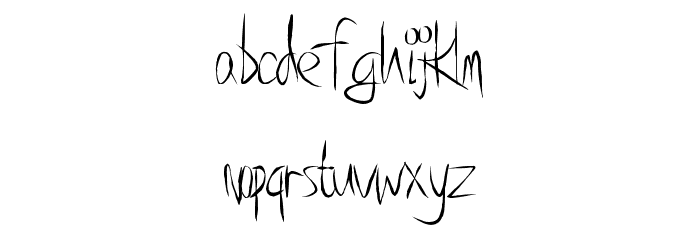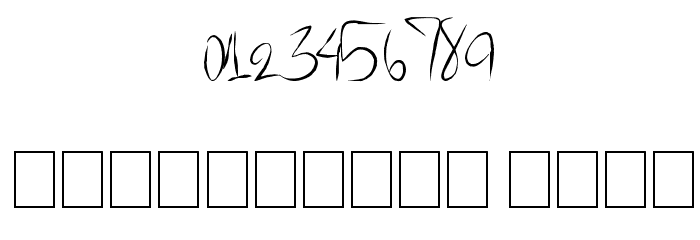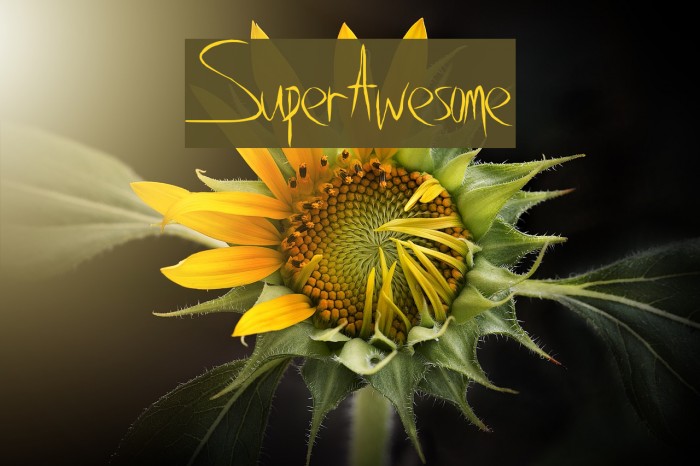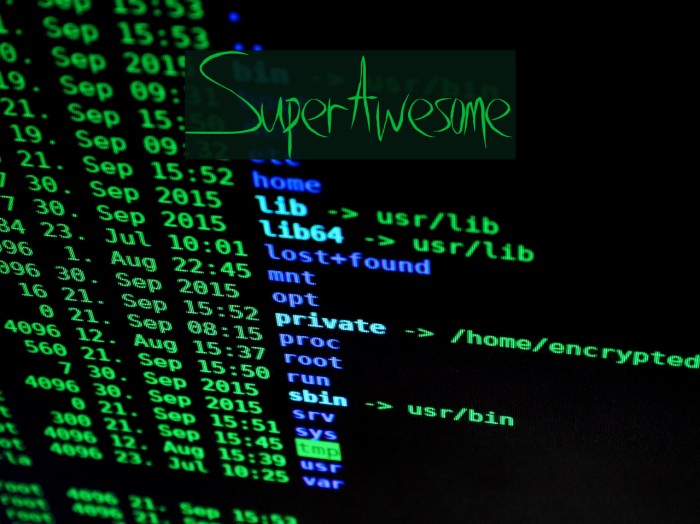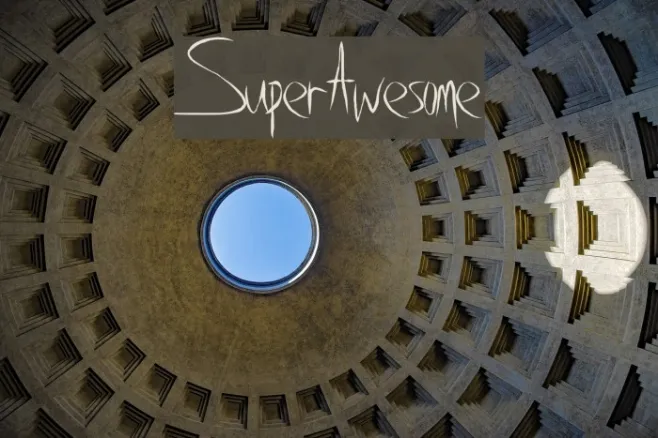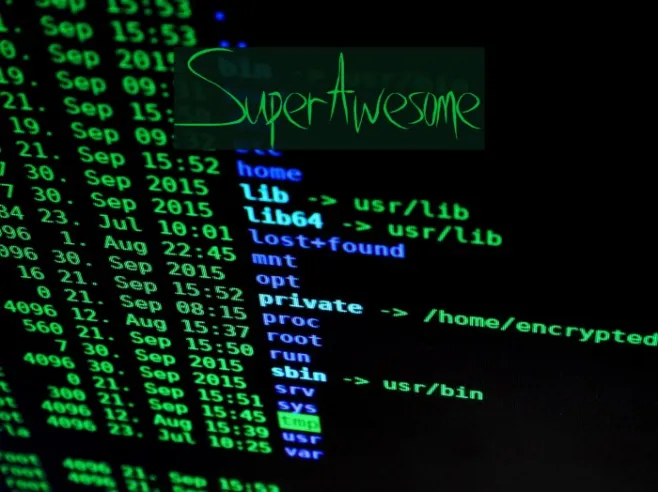
SuperAwesome Font
This font features a unique, hand-drawn style with an artistic flair. The letters are elongated and slightly irregular, giving it a whimsical and creative appearance. The uppercase characters are bold and prominent, while the lowercase letters maintain a consistent flow with a touch of elegance. The numbers follow the same artistic style, making them stand out. The special characters are designed to match the overall aesthetic, adding to the font's versatility. This font is perfect for projects that require a personal touch or a creative edge.
A whimsical, hand-drawn font with elongated, artistic characters.
- Proposed Projects: Ideal for creative projects such as invitations, greeting cards, posters, and artistic branding.
- Use Case: Logos, Headlines, Artistic projects